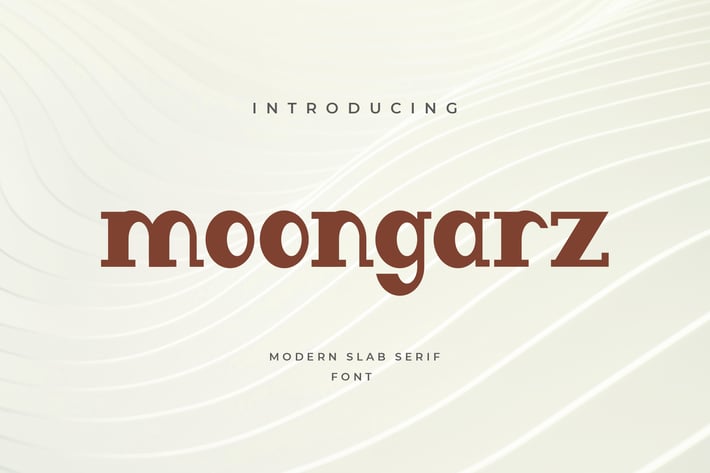
Moongarz Serif font
Moongarz is perfect modern serif font , gorgeous and elegant with a contemporary vibe. Use it to turn any design project into a standout! Can make it easier to convey the message in your design. Use for awesome display, labeling, clothing, movie sceen, poster, movie title, gigs, album covers, logos, and much more. It's also could be good for both fun and semi-formal text.